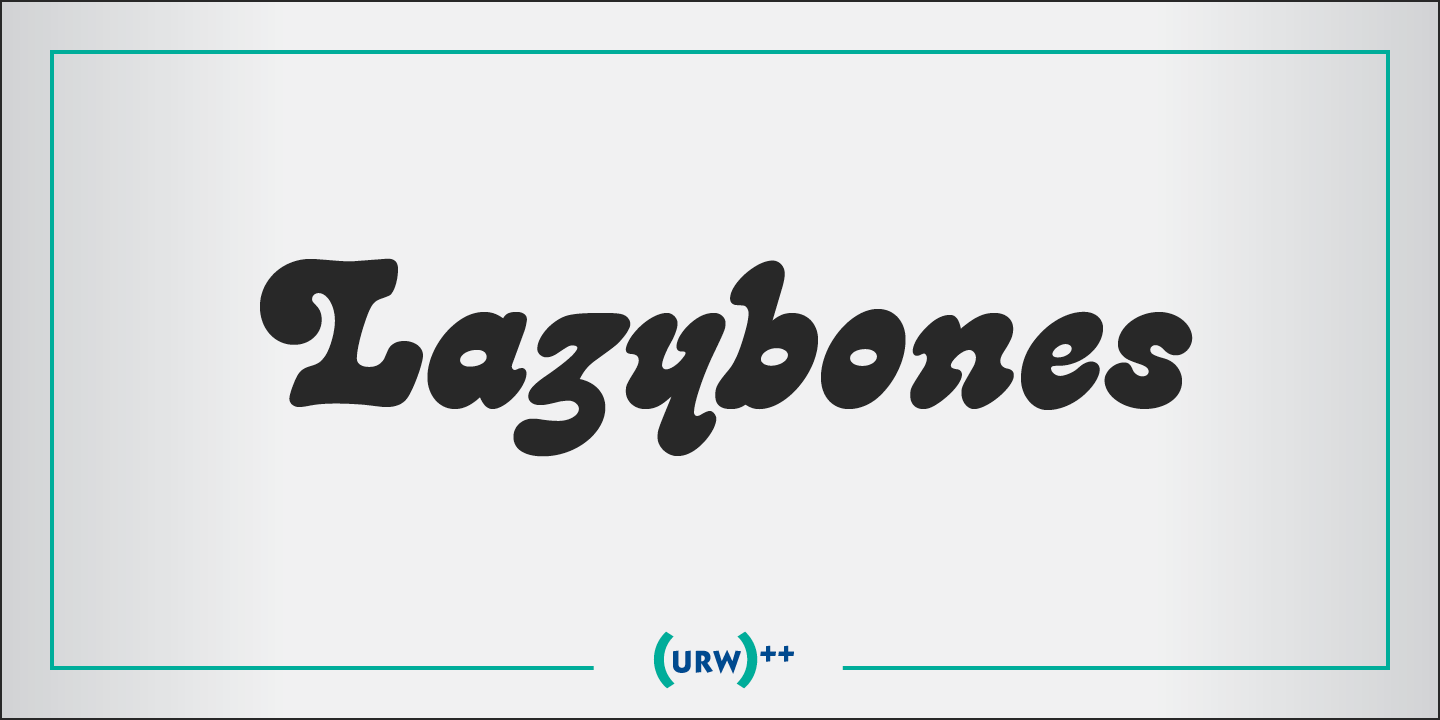
Lazybones Font is perfect for leisure brands, vacation resorts, hammock companies, casual dining restaurants, weekend getaway promotions, relaxation apps, spa services, and lifestyle brands that require laid-back typography with easygoing charm and comfortable, stress-free visual appeal.
What makes Lazybones Font exciting is its wonderful ability to instantly evoke feelings of relaxation and carefree comfort through deliberately casual letterforms. This charming typeface features relaxed curves and unhurried spacing that communicate leisure and tranquility, making it ideal for brands seeking to offer customers a break from life's pressures and hectic schedules.
The Lazybones Font family includes light, regular, and bold weights, along with playful variations and casual alternates for enhanced laid-back authenticity. Each style maintains the font's characteristic relaxed personality while providing designers with versatile tools for creating comfortable layouts and stress-free brand communications that invite relaxation.
Leisure professionals consistently choose Lazybones Font Free Download for projects requiring authentic casual appeal and relaxation-focused messaging. This versatile typeface seamlessly conveys comfort and ease while maintaining clear readability, ensuring brand messages resonate with audiences seeking genuine downtime and stress-relief experiences.
The font's casual aesthetics and relaxed character make it particularly suitable for hospitality and wellness sectors. Lazybones Font delivers exceptional laid-back impact while ensuring comfortable reading, offering designers a perfect solution for creating memorable brand identities that communicate relaxation, comfort, and easygoing lifestyle values across leisure and wellness marketing applications.